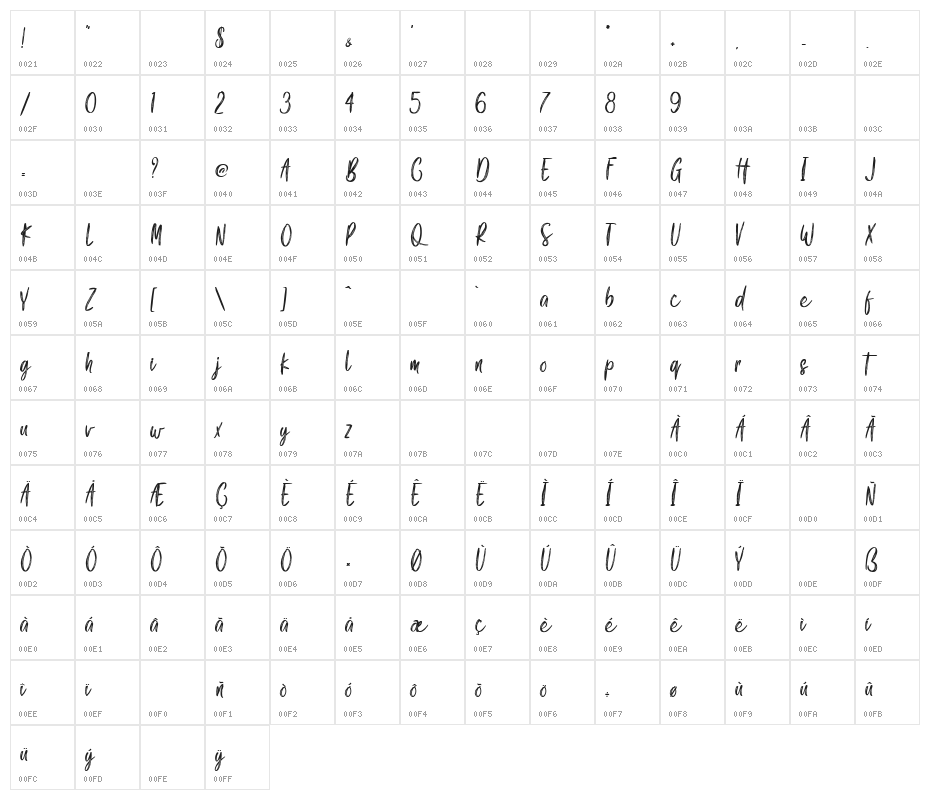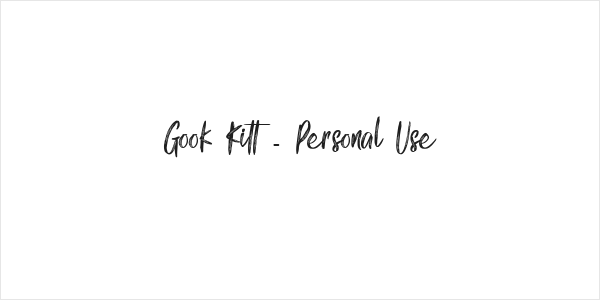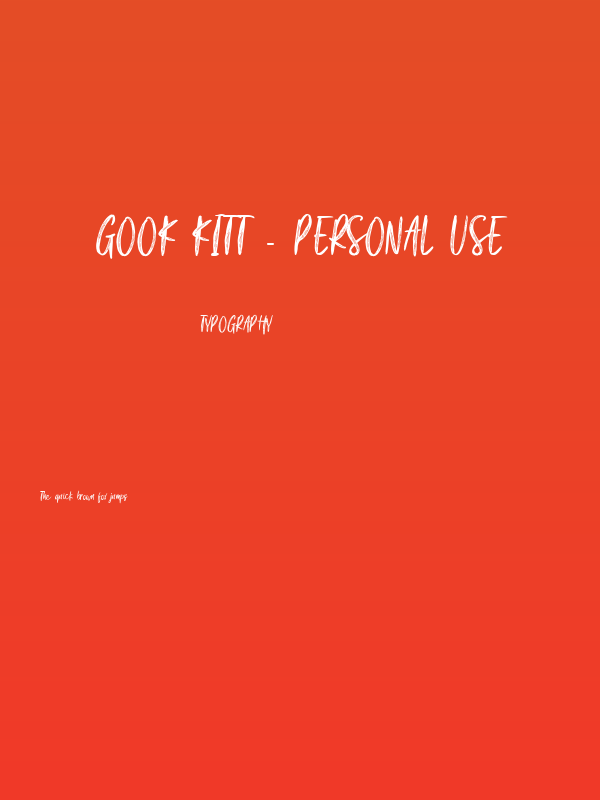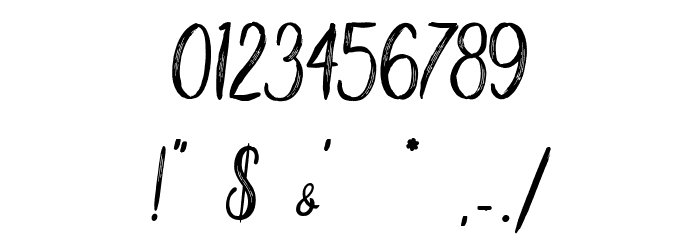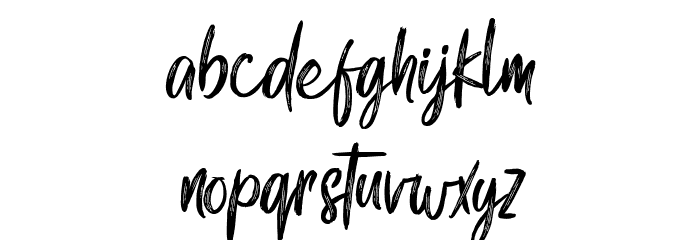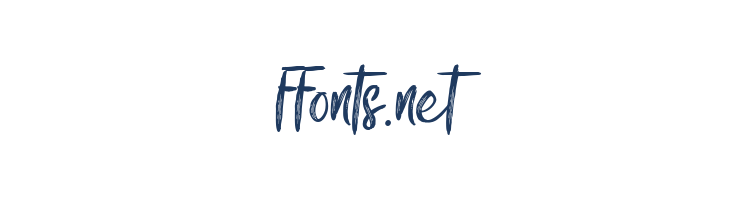
Gook Kitt - Personal Use Font
This font features a dynamic and expressive handwritten style, characterized by its brush-like strokes and organic flow. The letters exhibit a natural, slightly irregular appearance, giving them a personal and artistic touch. The uppercase and lowercase letters maintain a consistent style, with a playful and casual feel. The numbers and special characters are equally expressive, ensuring a cohesive look across all text elements. This font is perfect for projects that require a personal, artistic, or informal touch, such as invitations, greeting cards, or creative branding.
| Proposed Projects | Ideal for invitations, greeting cards, creative branding, and artistic projects. |